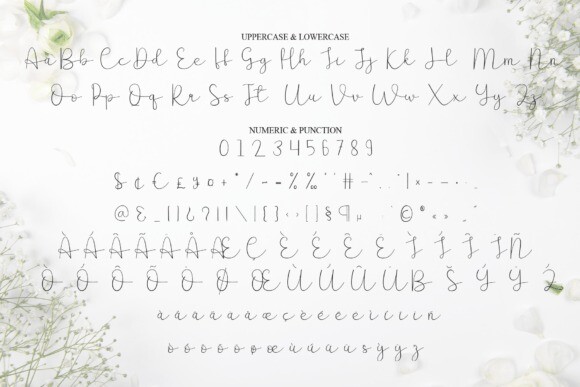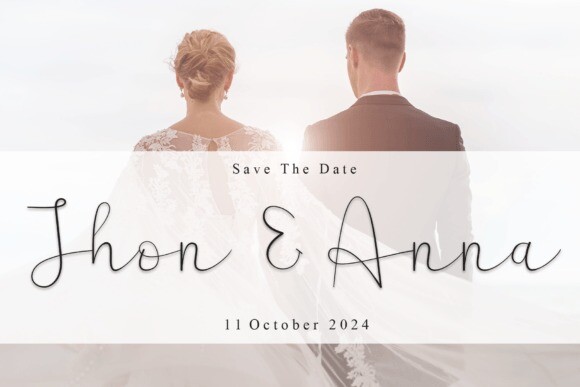
Sweet Alphabet Font
Sweet Alphabet Font a handwritten display font, delicately sweet yet refreshingly friendly – perfect for adding a whimsical touch to your artistic endeavors! This adorable font is tailor-made for wedding invitations, greeting cards or any design canvas that could benefit from a splash of fun. Indulge in the casual elegance of this delightful font to breathe life into your creative designs.